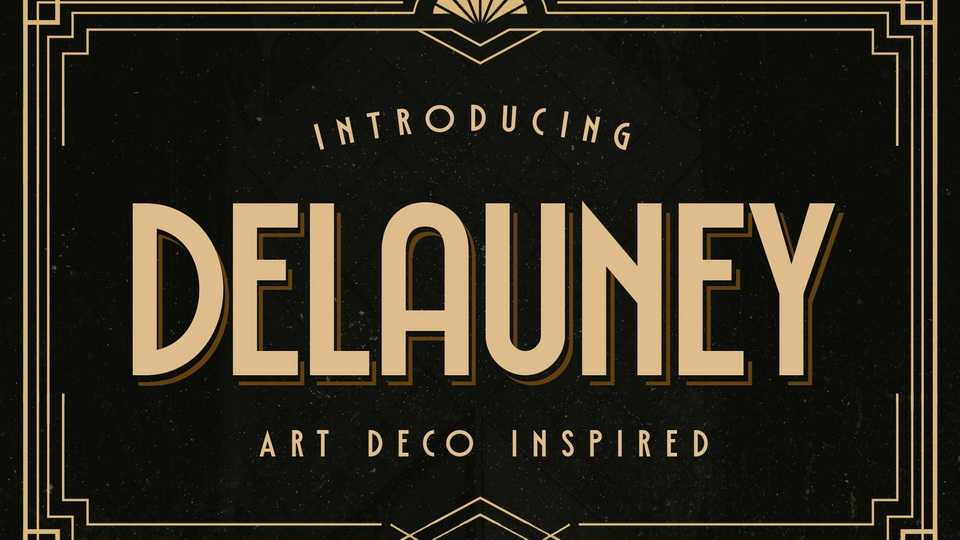
Download Delauney font, a display typeface, inspired by the Art Deco style from the 1920s. Delauney visualizes luxurious looks, elegance, and wealth.